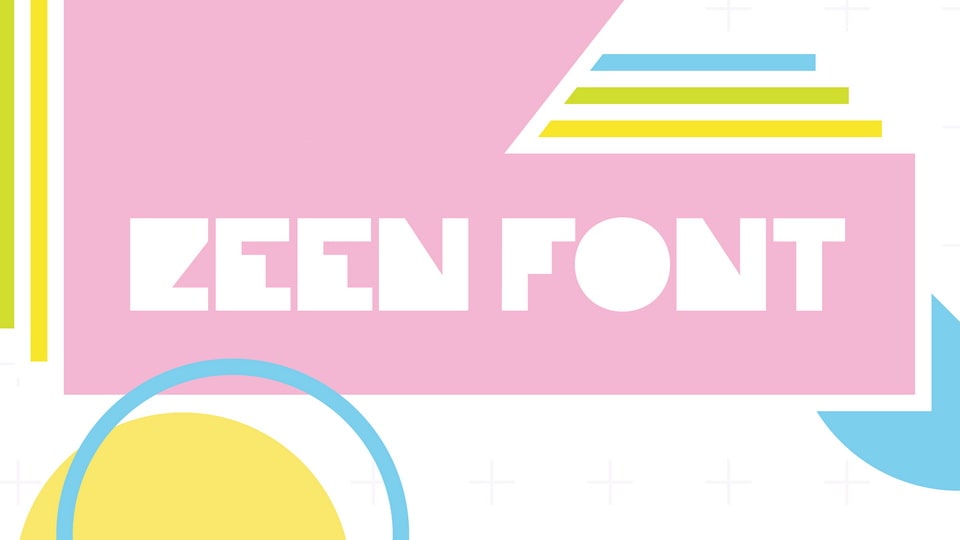
Download Zeen font, a multi-case display typeface designed in a quirky retro/modern style. Zeen font is great for posters and other large formats.
Designer: Ron Nevers